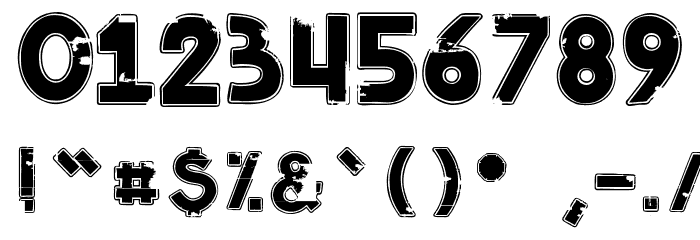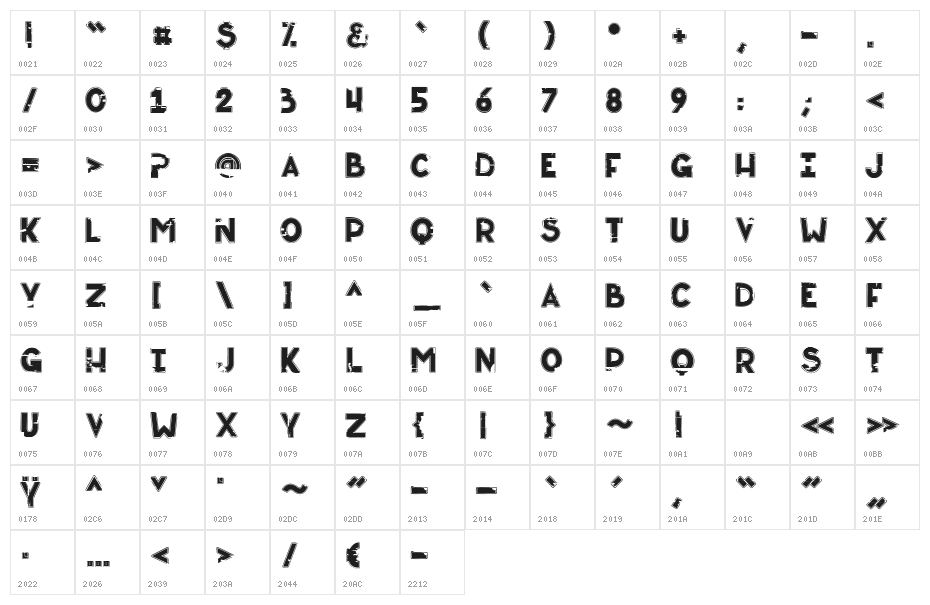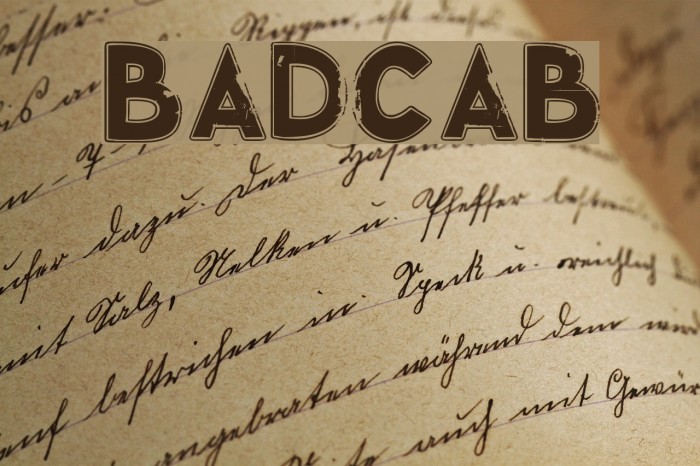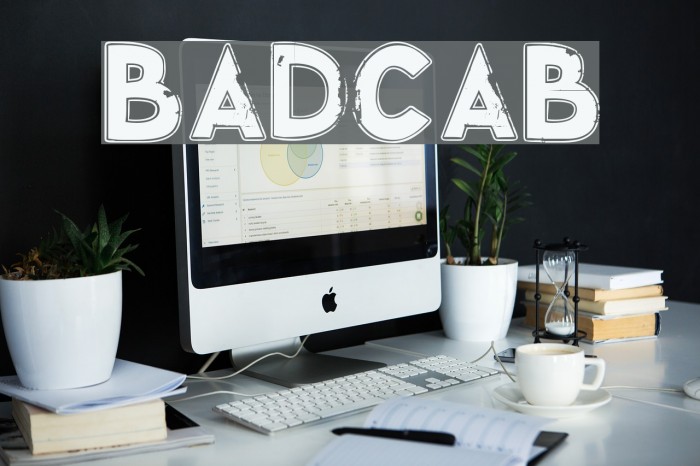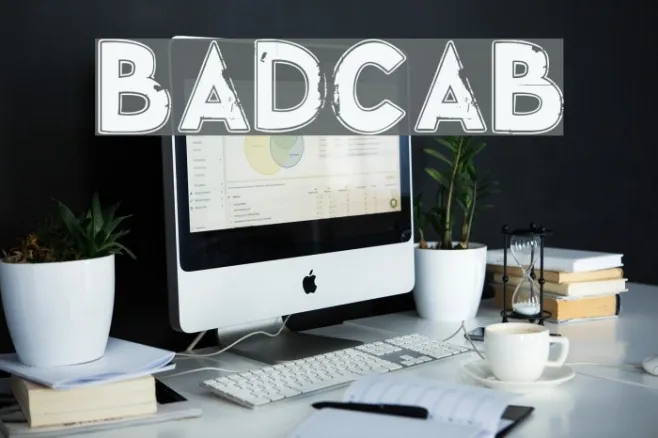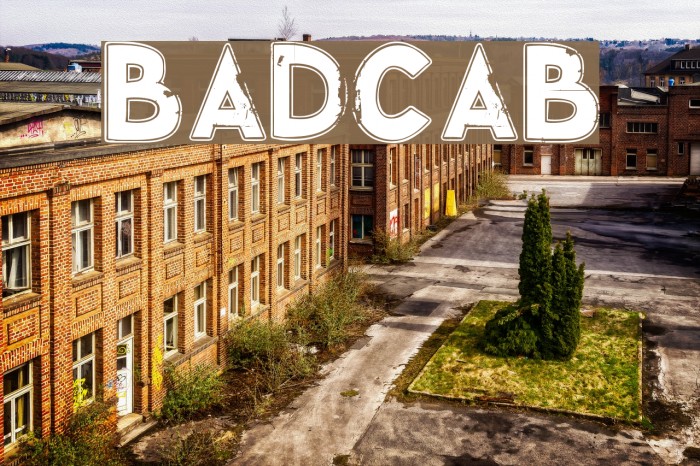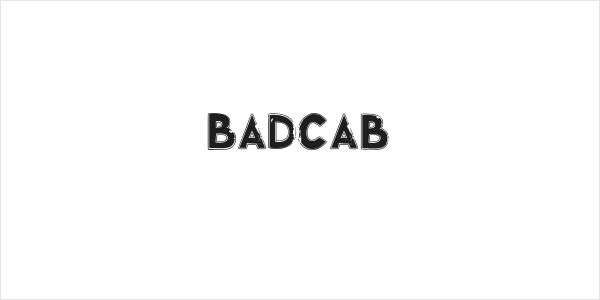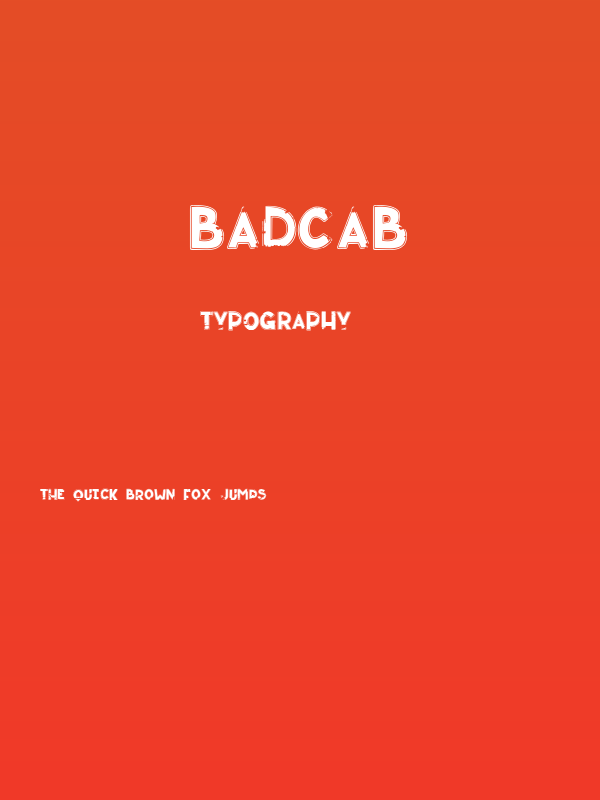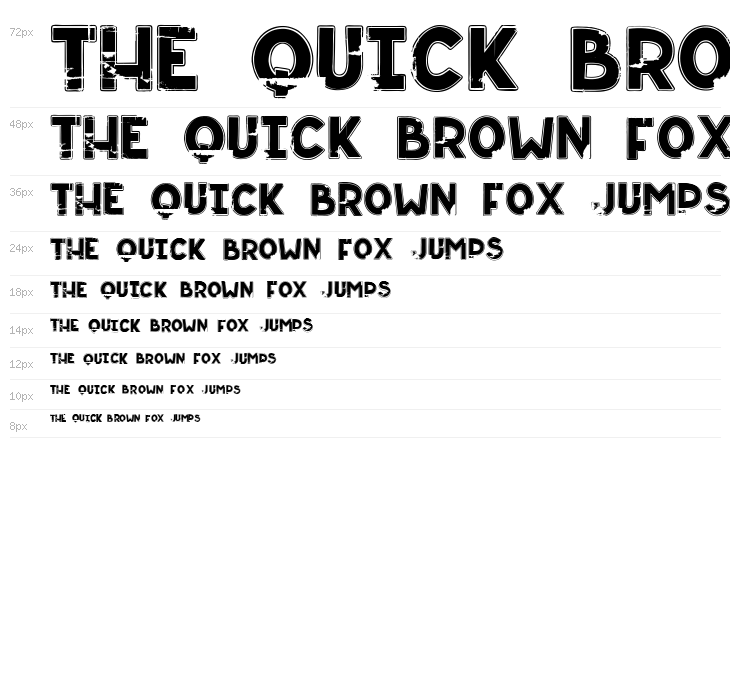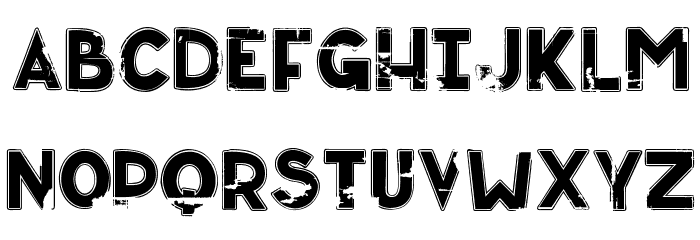
Badcab Font
Badcab Description
This font features a bold, distressed style with a rugged, textured appearance. The characters are thick and blocky, with a unique grunge effect that gives them a worn, vintage look. The uppercase and lowercase letters maintain a consistent width, creating a uniform appearance despite the distressed detailing. The numbers and special characters follow the same design, ensuring a cohesive look across all elements. This font's boldness and texture make it stand out, ideal for projects that require a strong visual impact.
| Overall Style | Vintage, Grunge |
| Proposed Projects | Ideal for posters, album covers, branding, and any design requiring a bold, vintage aesthetic. |